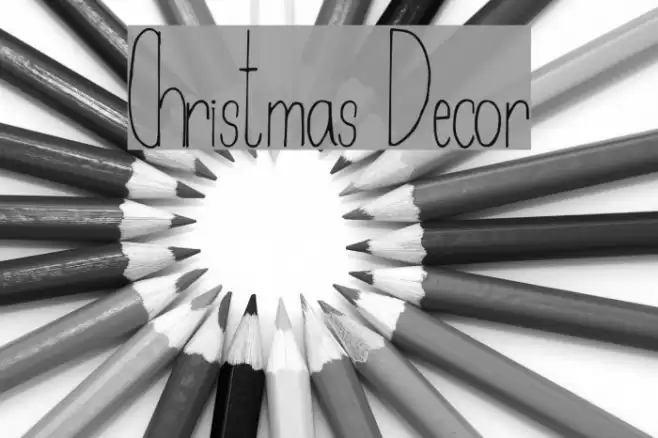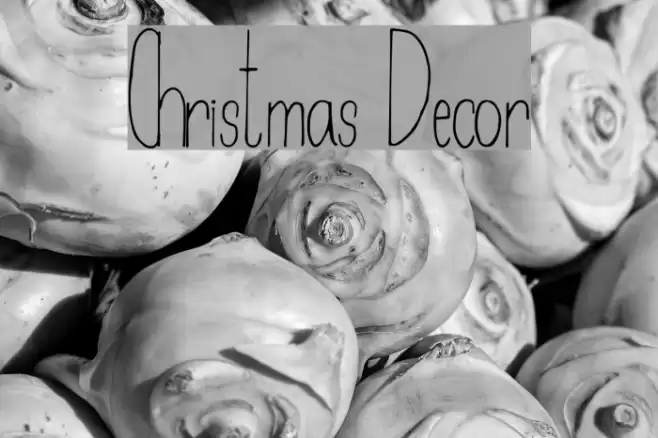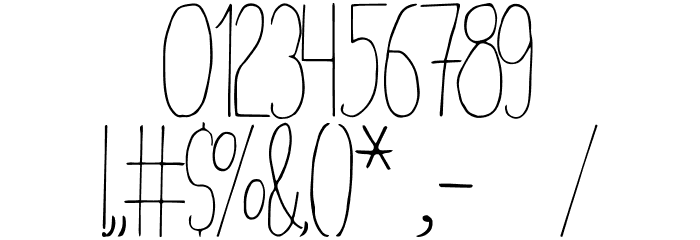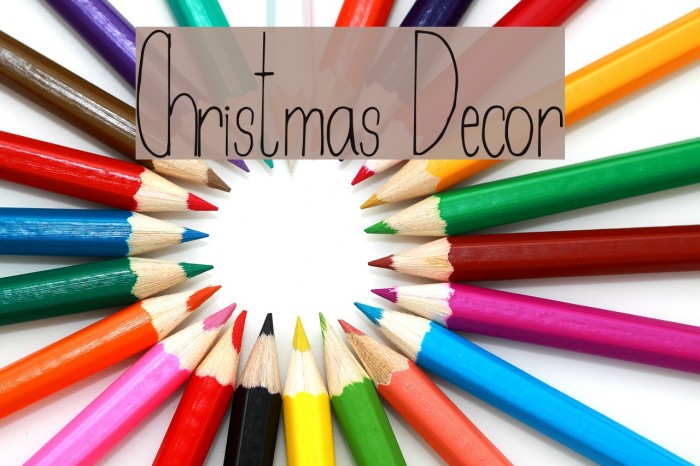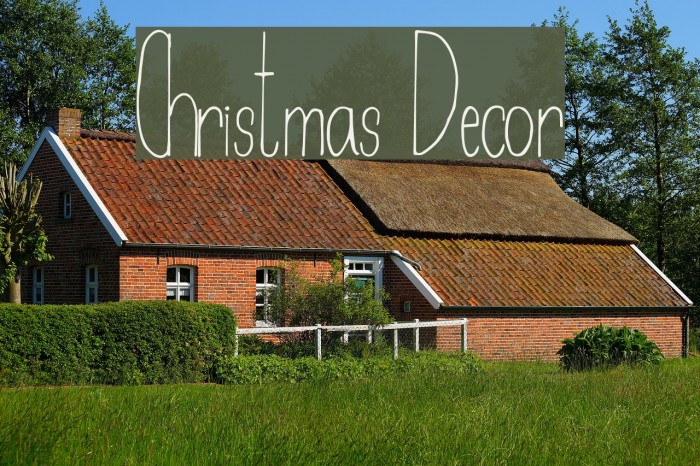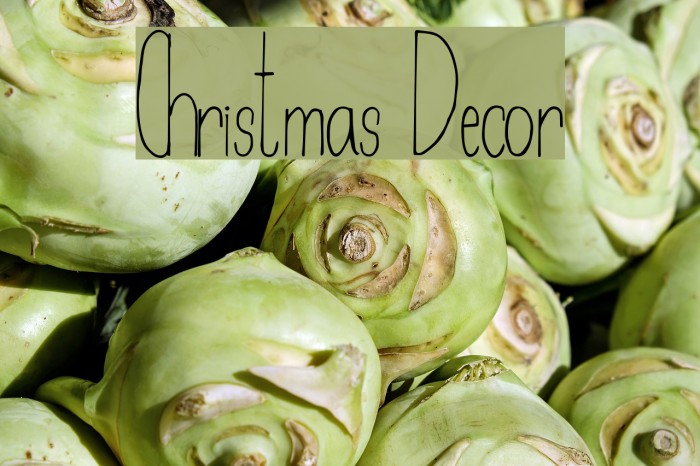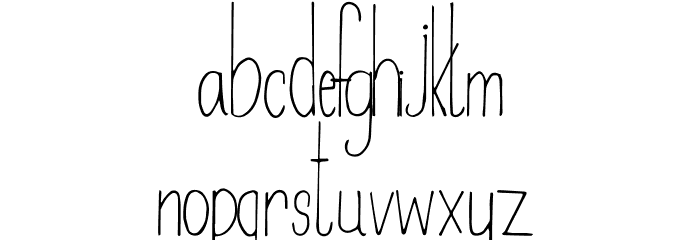
Christmas Decor Font
Christmas Decor Description
This font features a whimsical and playful design with tall, narrow characters that have a hand-drawn appearance. The letters are slightly irregular, adding a charming and informal feel. The strokes are thin and consistent, giving the font a delicate and airy look. The uppercase letters are particularly elongated, while the lowercase letters maintain a more traditional height. The numbers and special characters follow the same playful style, making this font suitable for creative and festive designs.
A whimsical, hand-drawn font with tall, narrow characters and a playful style from Uncategorized fonts.
- Proposed Projects: Ideal for holiday cards, children's book covers, playful branding, and festive invitations.